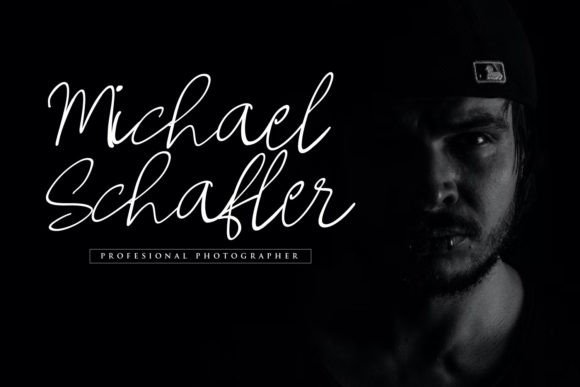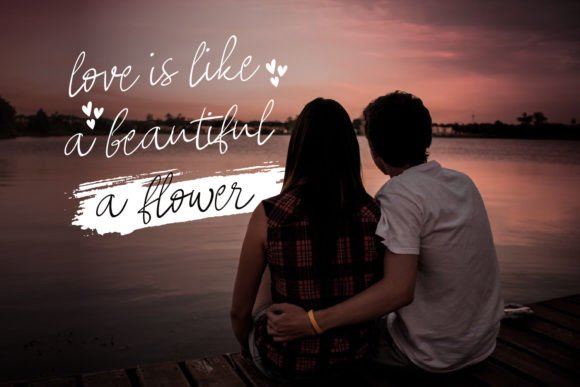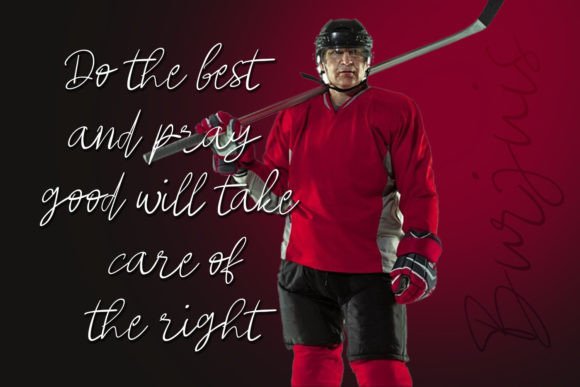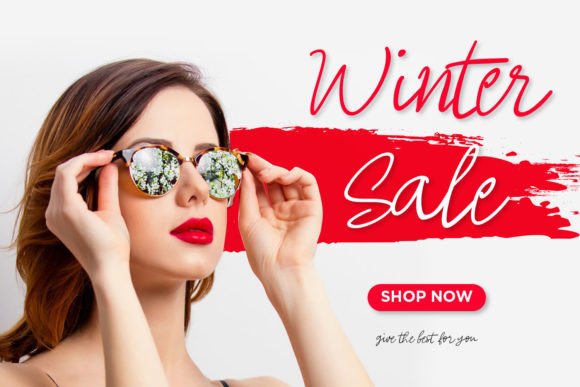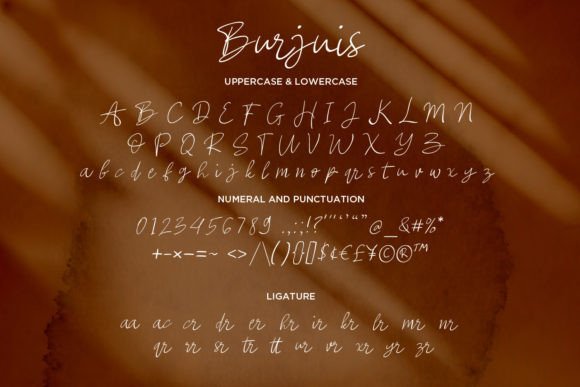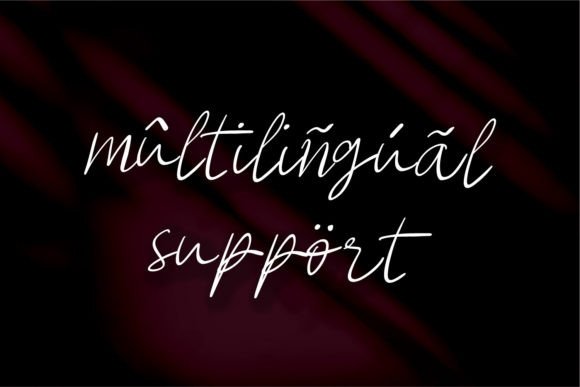
Introducing Burjuis Font: The Epitome of Elegance and Sophistication
In the realm of typography, few fonts manage to convey the essence of luxury and refinement as effortlessly as Burjuis. This modern handwritten script font has been turning heads with its unique blend of elegance and sophistication, making it a go-to choice for designers and crafters seeking to elevate their creations. With its flowing and curvaceous letterforms, Burjuis exudes a sense of effortless beauty that is hard to resist.
The Characteristics of Burjuis Font
Burjuis is more than just a font; it’s an experience. Its modern handwritten script style gives it a personal and intimate feel, perfect for projects that require a touch of warmth and personality. The flowing and curvaceous letterforms are not just aesthetically pleasing; they also contribute to the font’s readability, making it suitable for both short and long texts.
One of the standout features of Burjuis is its versatility. Whether you’re working on wedding invitations, greeting cards, branding, or logo designs, this font adapts seamlessly to various design projects. Its elegant and refined nature ensures that it complements a wide range of themes and styles, from classic and traditional to modern and contemporary.
Uses of Burjuis Font
The applications of Burjuis are vast and varied. Here are a few ways designers and crafters can utilize this beautiful font:
- Wedding Invitations: Add a touch of luxury and romance to your wedding invitations with Burjuis. Its elegant letterforms and flowing curves create a perfect blend of sophistication and charm.
- Greeting Cards: Whether it’s a birthday, anniversary, or holiday greeting, Burjuis brings a level of refinement and thoughtfulness to your cards that is sure to impress.
- Branding and Logo Designs: For businesses looking to establish a premium brand image, Burjuis can be a valuable asset. Its unique and memorable style helps brands stand out and convey a sense of high-end quality.
Why Choose Burjuis Font?
In a world where fonts are plentiful and competition for attention is fierce, Burjuis stands out for several reasons:
- Timeless Appeal: Unlike trends that come and go, Burjuis possesses a timeless charm that won’t fade. Its classic elegance ensures that your designs remain relevant and stylish for years to come.
- Versatility: Burjuis’s adaptability makes it an excellent investment for designers and crafters. It can be used across a wide range of projects, reducing the need for multiple fonts.
- Easy to Read: Despite its elegant and cursive nature, Burjuis maintains a high level of readability, making it suitable for both headings and body text.
How to Use Burjuis Font Effectively
To make the most of Burjuis, consider the following tips:
- Pair it with Simplicity: Let Burjuis be the star of your design. Pairing it with simple backgrounds or fonts allows its elegance to shine through.
- Experiment with Colors: While Burjuis looks stunning in traditional colors like black and gold, don’t be afraid to experiment with other hues to match your brand or theme.
- Play with Sizes: Utilize Burjuis in various sizes to create visual hierarchy and emphasize key messages in your design.
Burjuis font is a game-changer for designers and crafters looking to infuse their projects with elegance, sophistication, and a touch of modernity. Its versatility, readability, and timeless charm make it an invaluable asset in the world of design. Whether you’re creating wedding invitations, greeting cards, or branding materials, Burjuis is sure to elevate your creations to new heights of style and refinement. Discover the beauty of Burjuis and let it transform your designs into works of art.